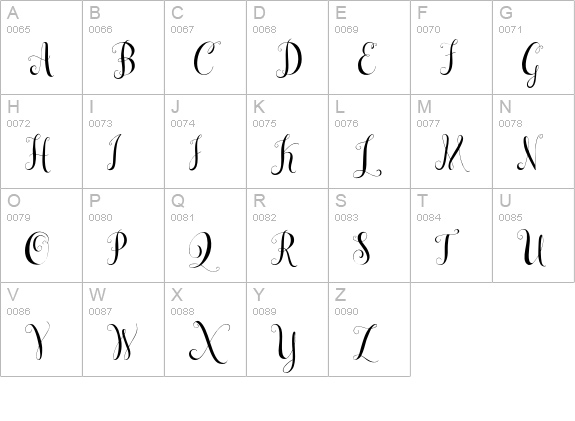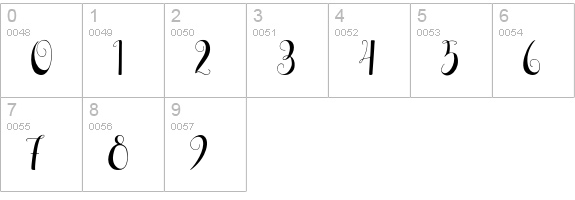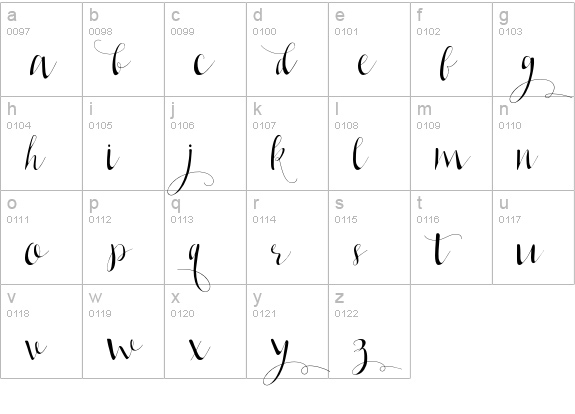
Judy Font Details
Judy font is a beautiful and elegant typeface that exudes sophistication and charm. Its delicate curves and stylish design make it perfect for a wide range of design projects, from invitations to branding. The versatility of Judy font allows it to be used in both formal and informal settings, making it a must-have for designers looking to add a touch of class to their work. What sets Judy font apart is that it is available for free download at FontsMarket.com. This means that you can easily access this stunning font without any cost, making it a valuable addition to your font collection. Whether you're working on a personal project or a client's design, Judy font will elevate your work and leave a lasting impression. Download Judy font today and let its timeless elegance enhance your creations.